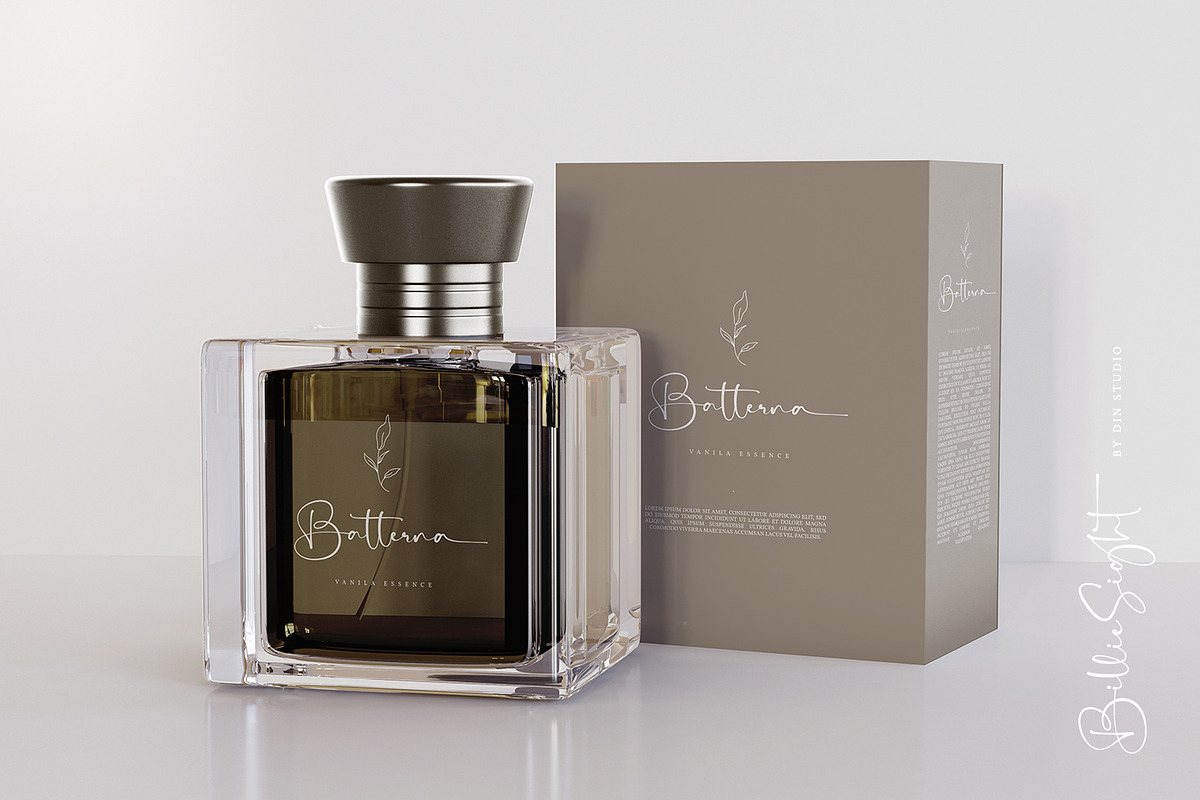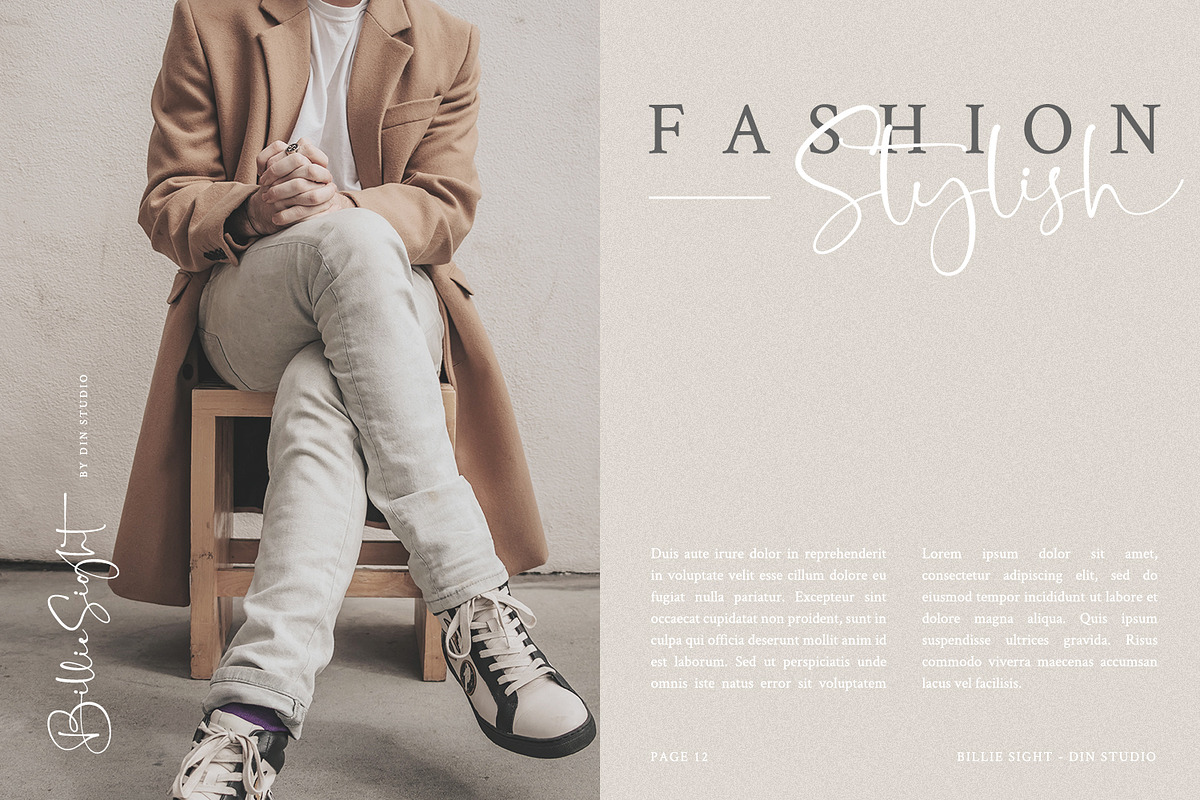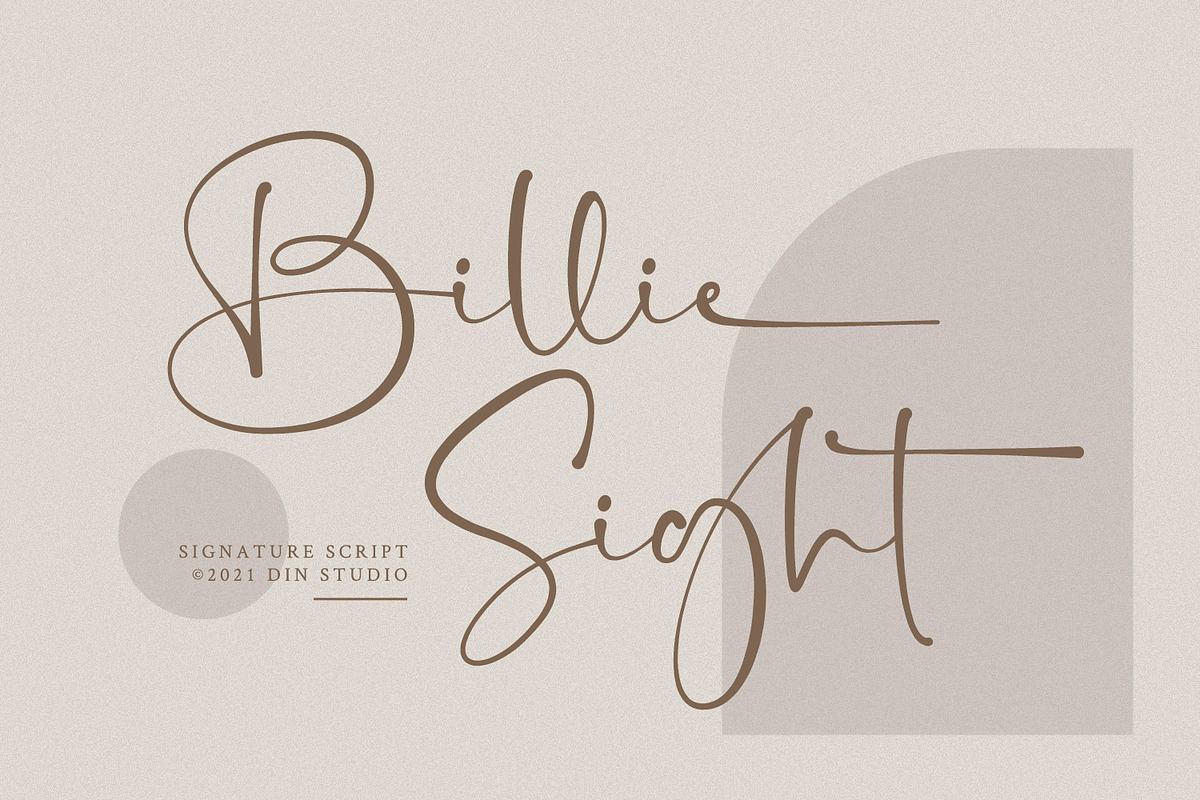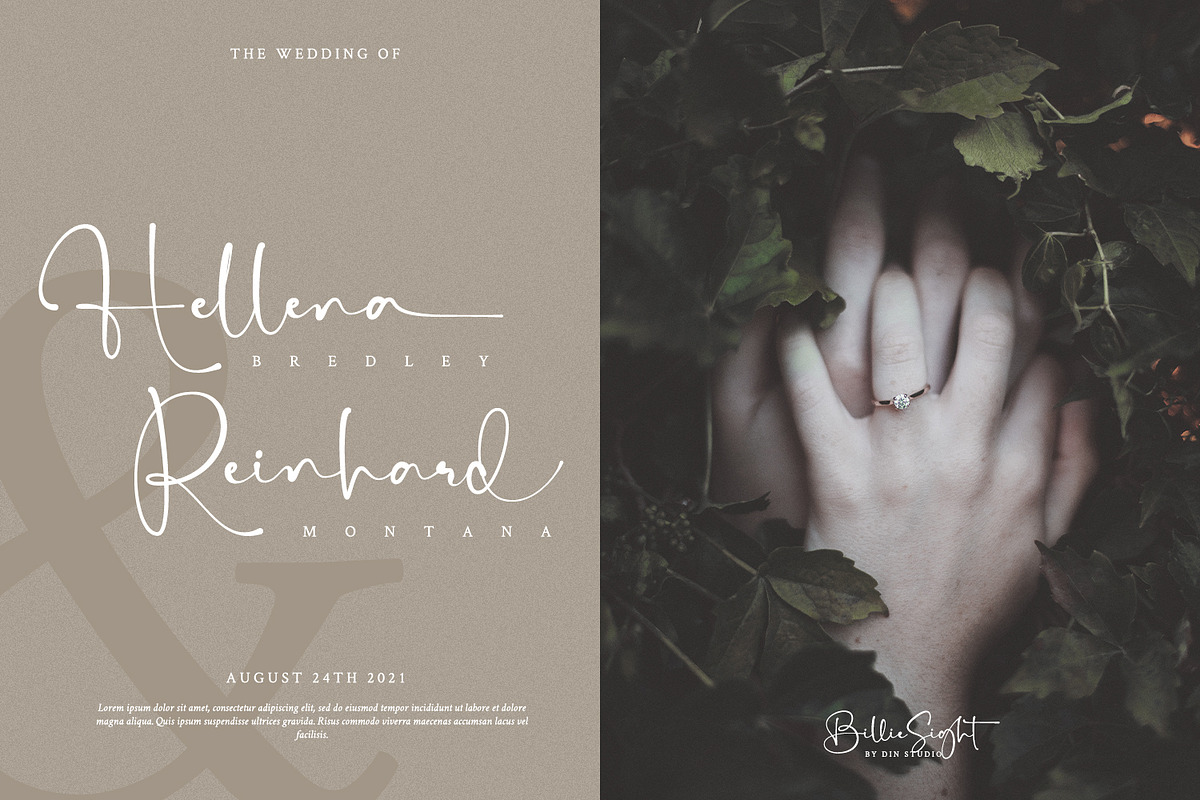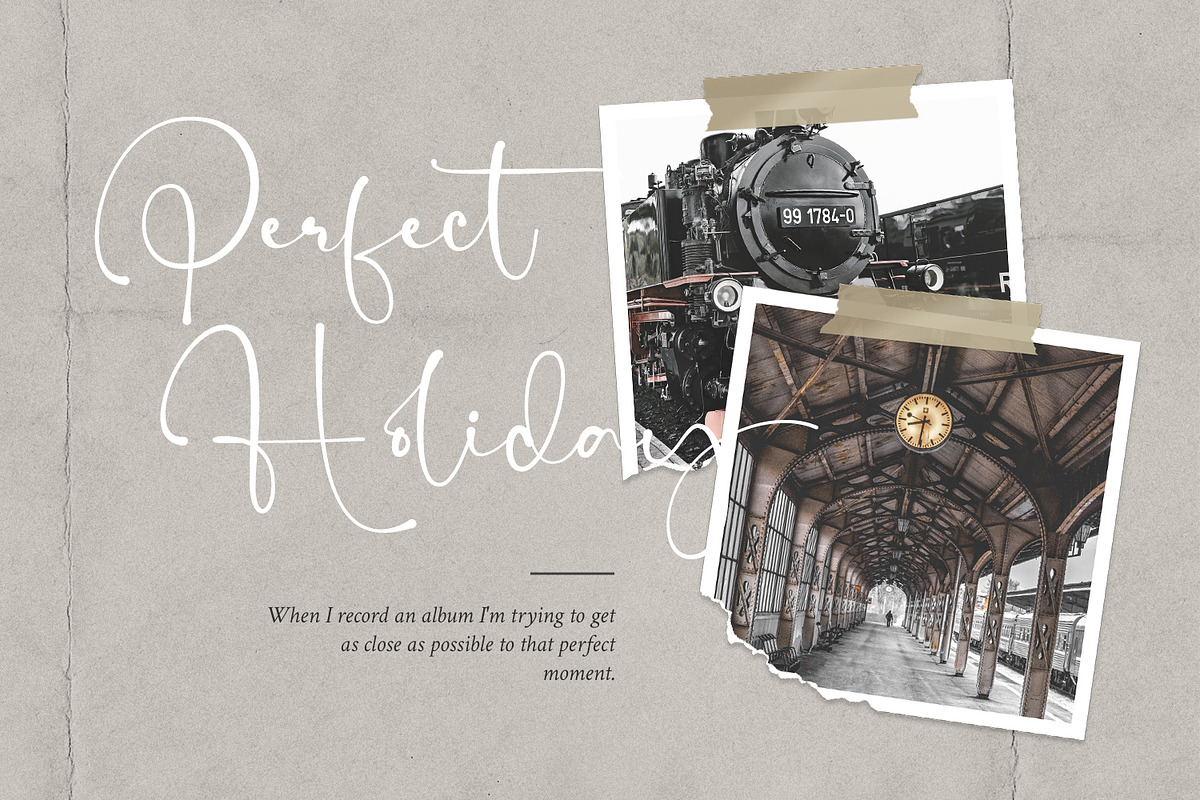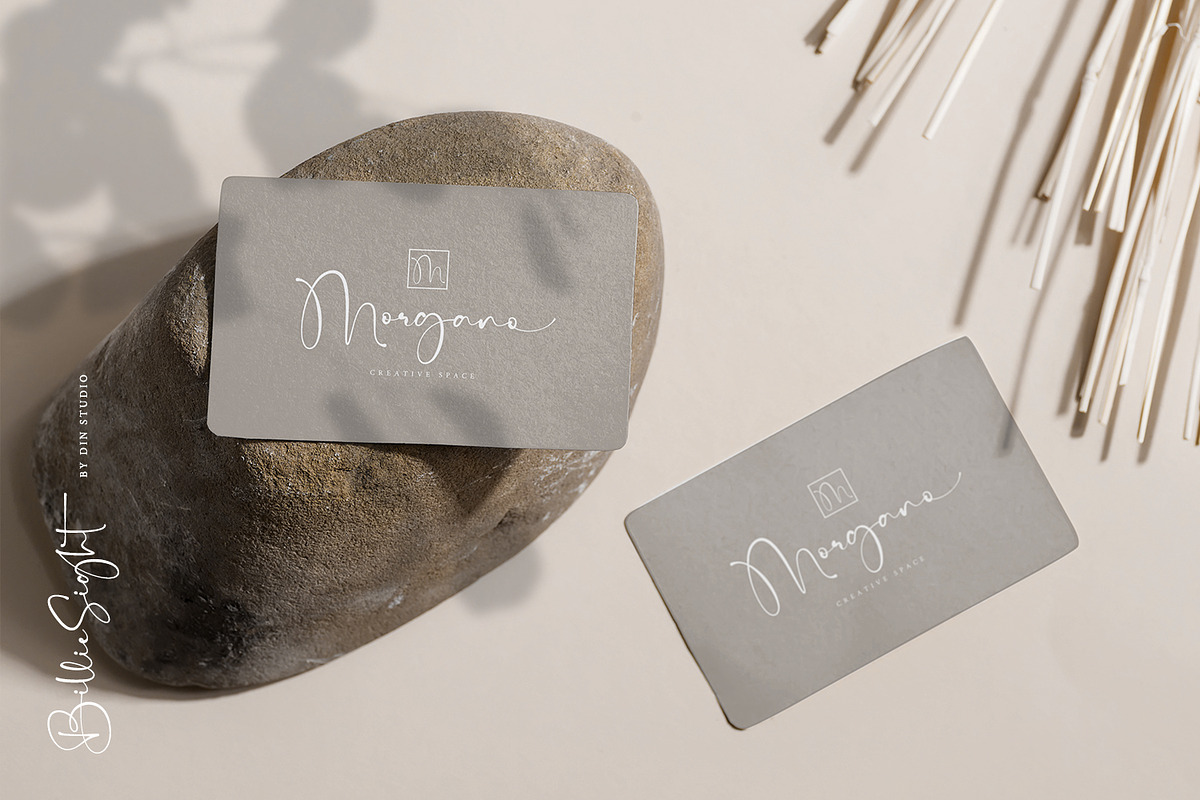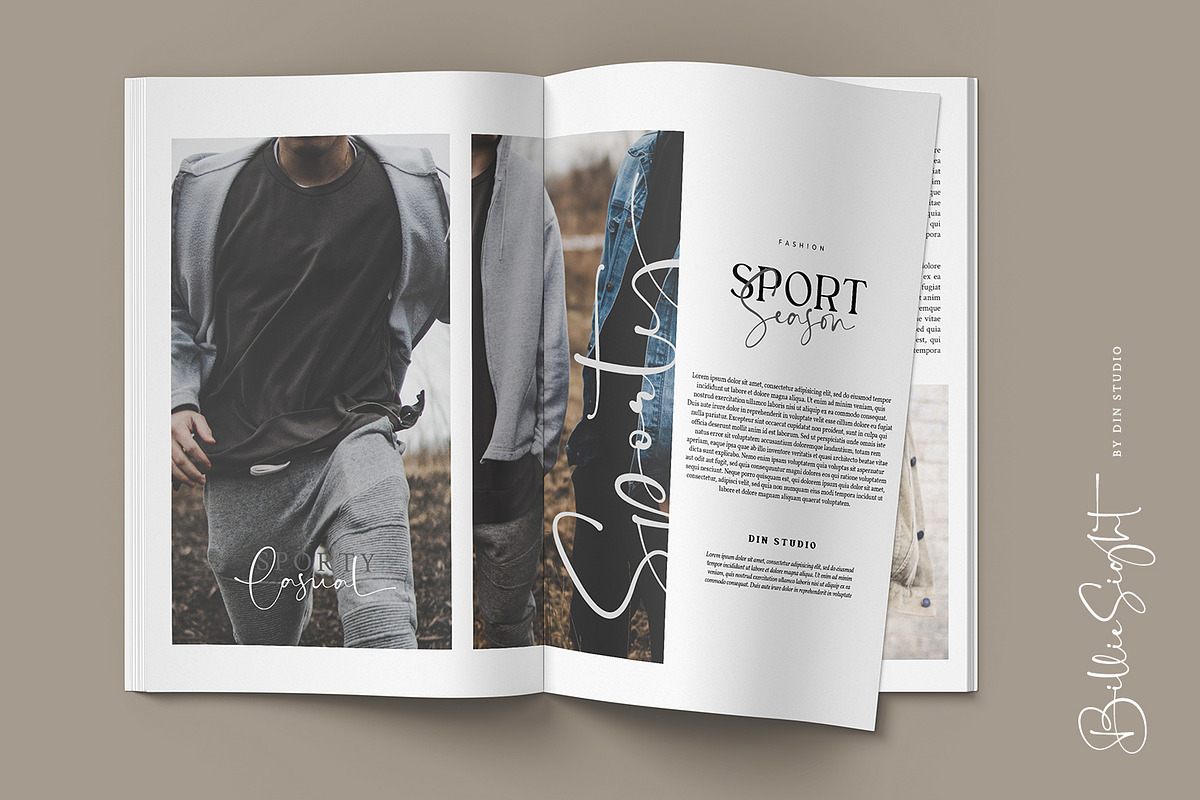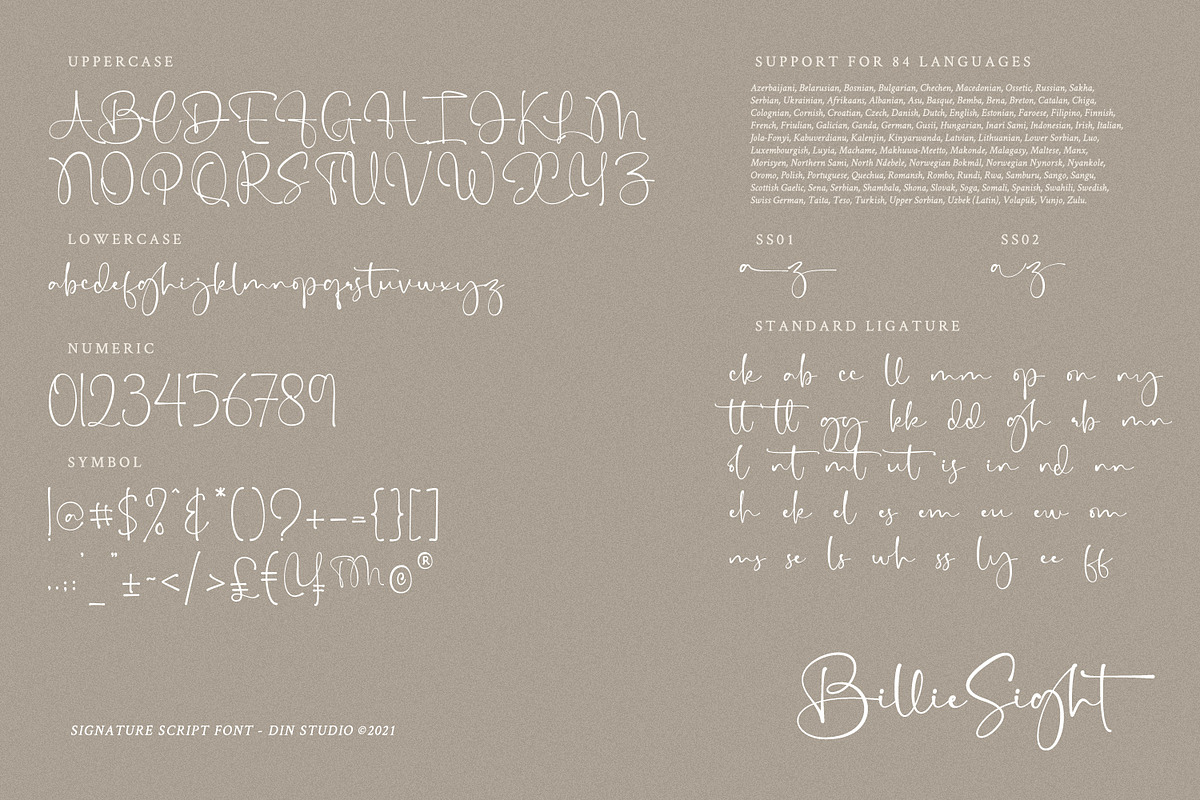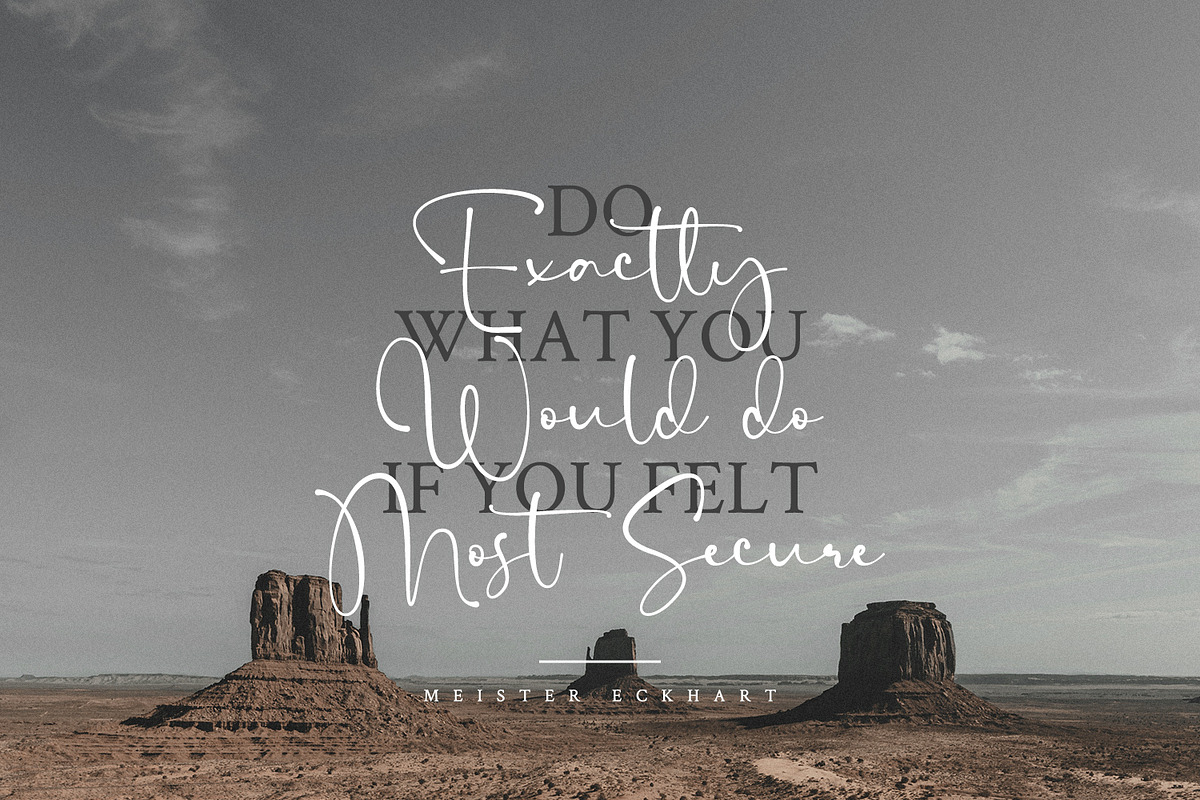
Billie Sight
Looking for the perfect font to use on invitations or branding? Hoping to travel your audience to a world of gorgeous, elegant, versatile, yet modern? Then, you go to the right path. Introducing Billie Sight – A Signature Font.
Billie Sight is a modern and elegant handcrafted signature font to embrace your audiences or guests. Every stroke and curve was created to capture the essence of elegance and style. Perfect for social media posts and ads, printed quotes, t-shirt designs, packaging, or even as a modern text overlay to any background image.
- Stylistic Sets